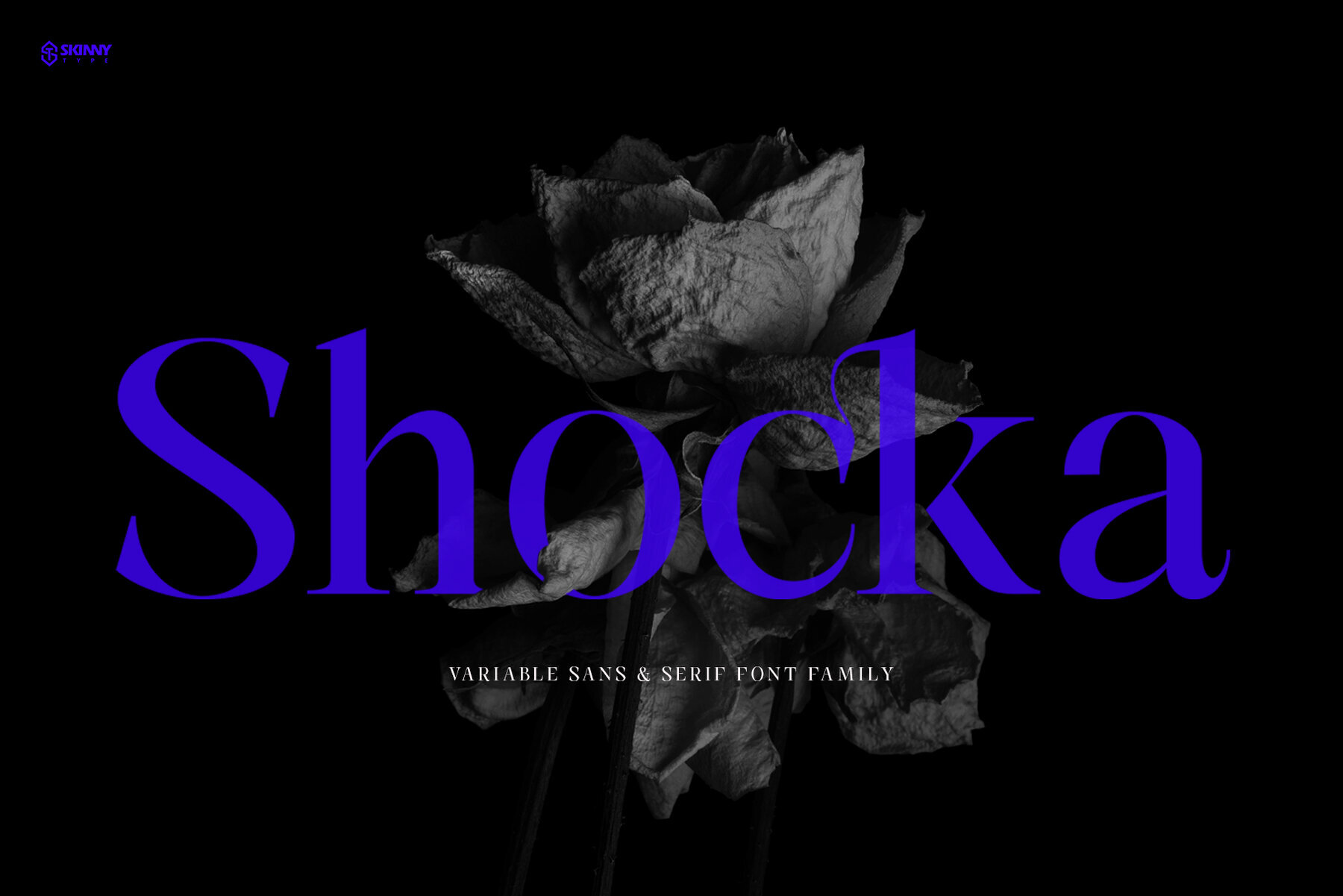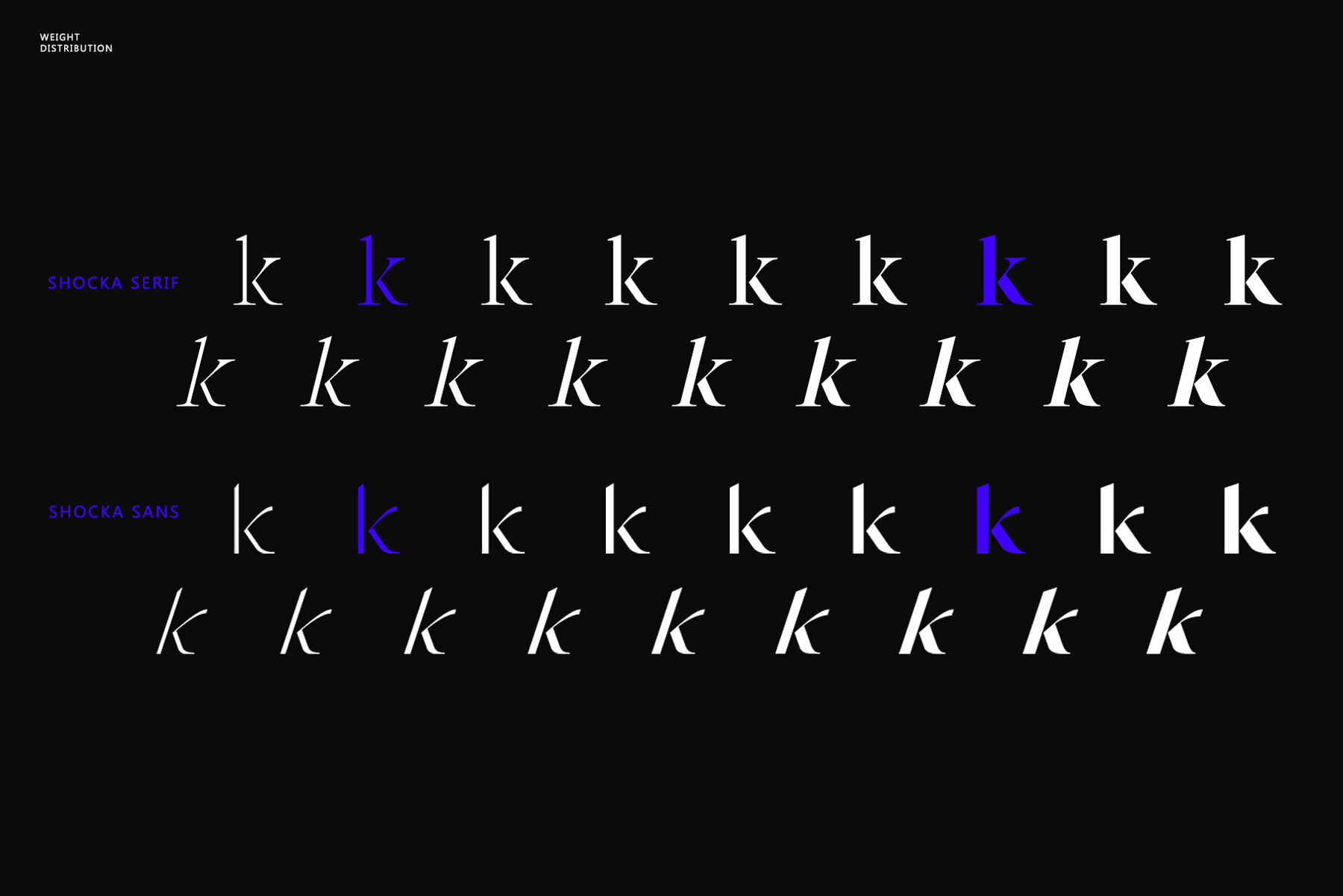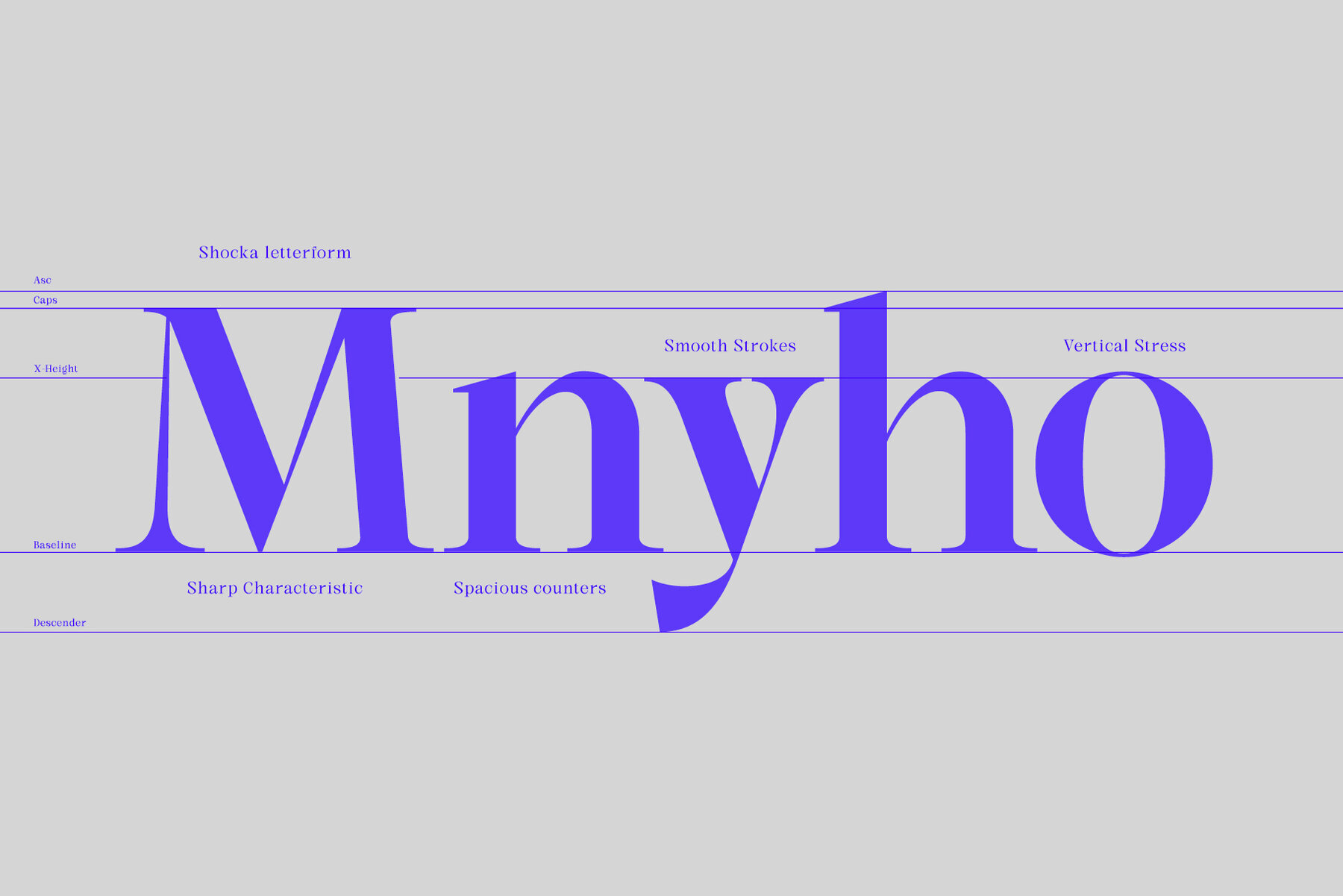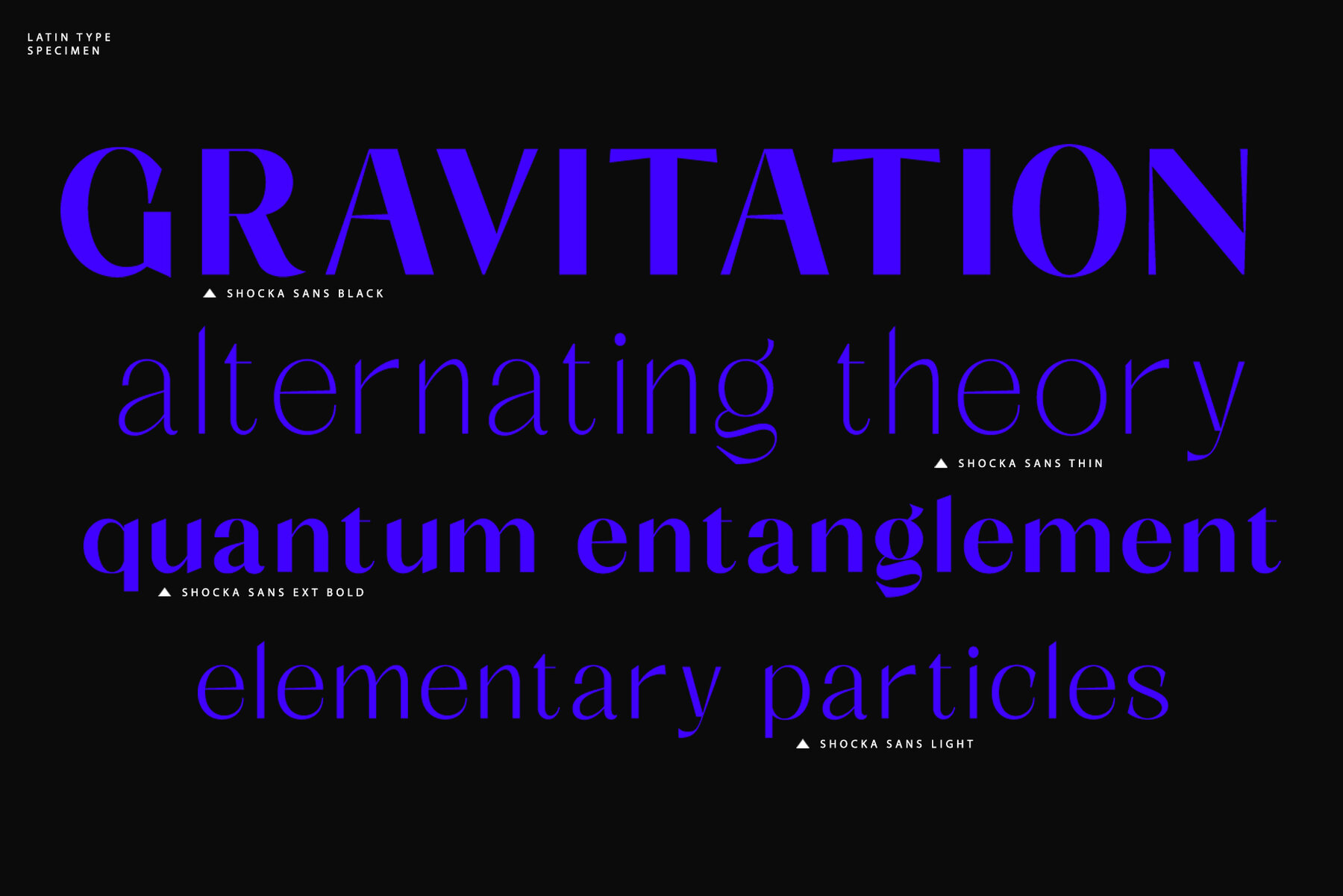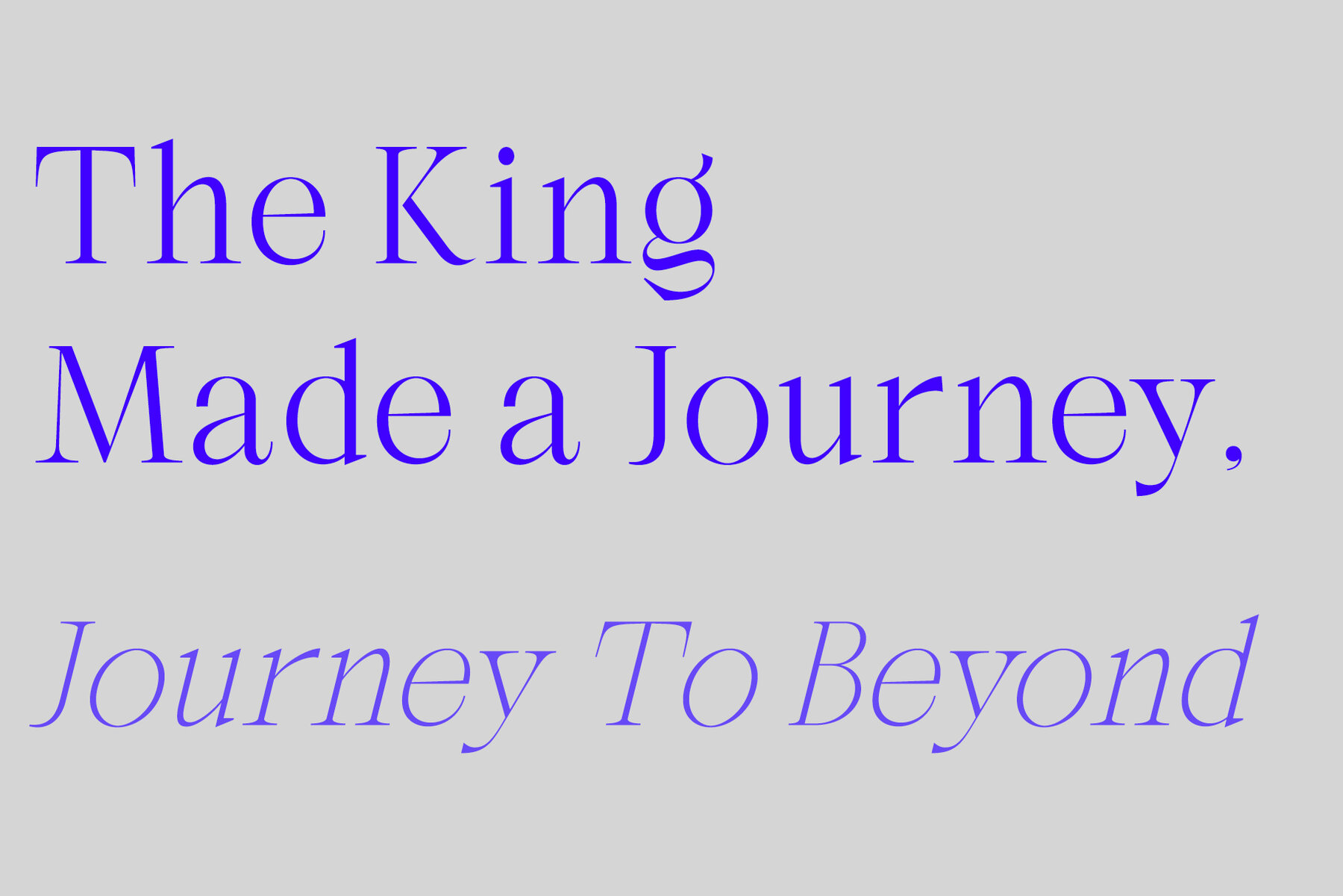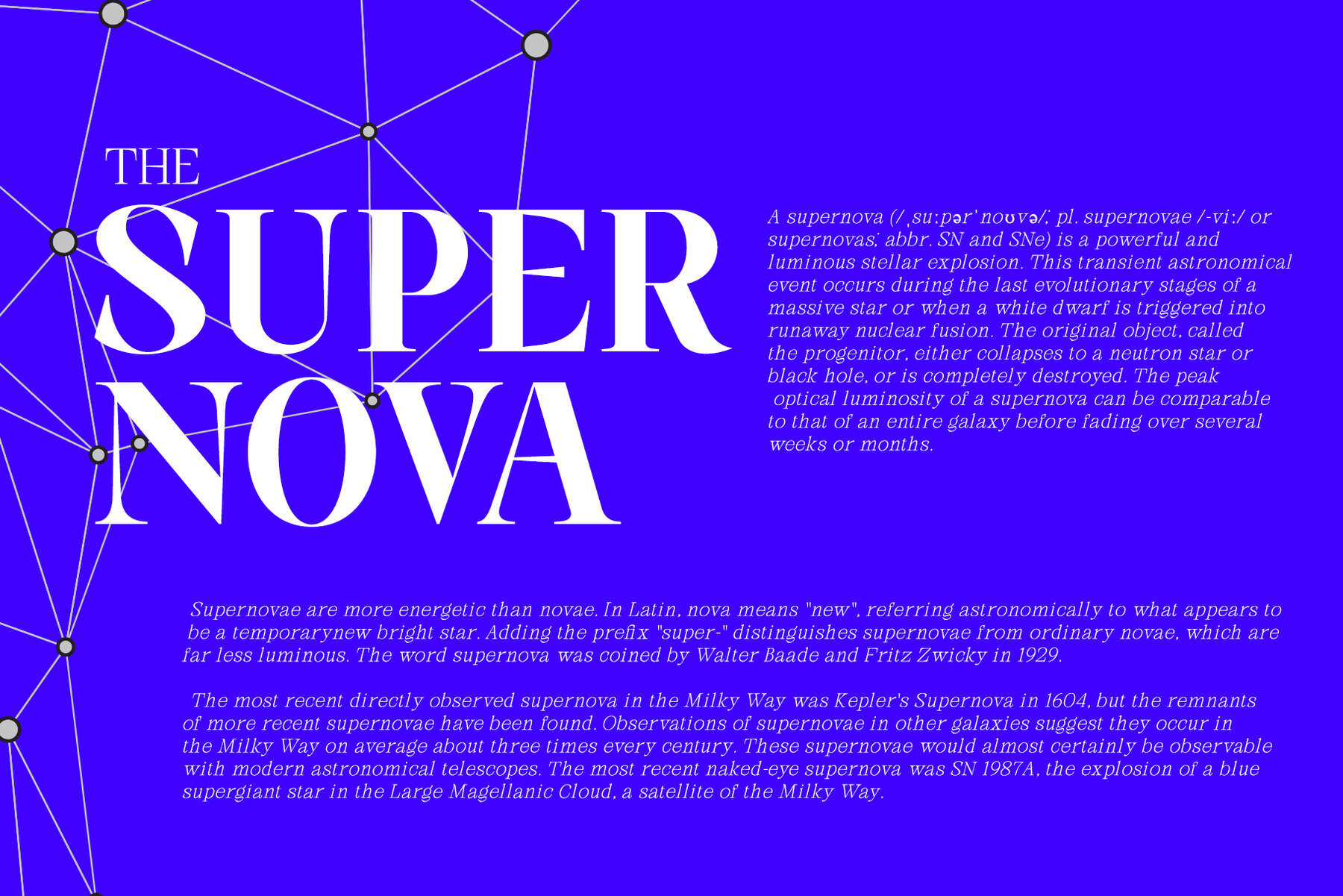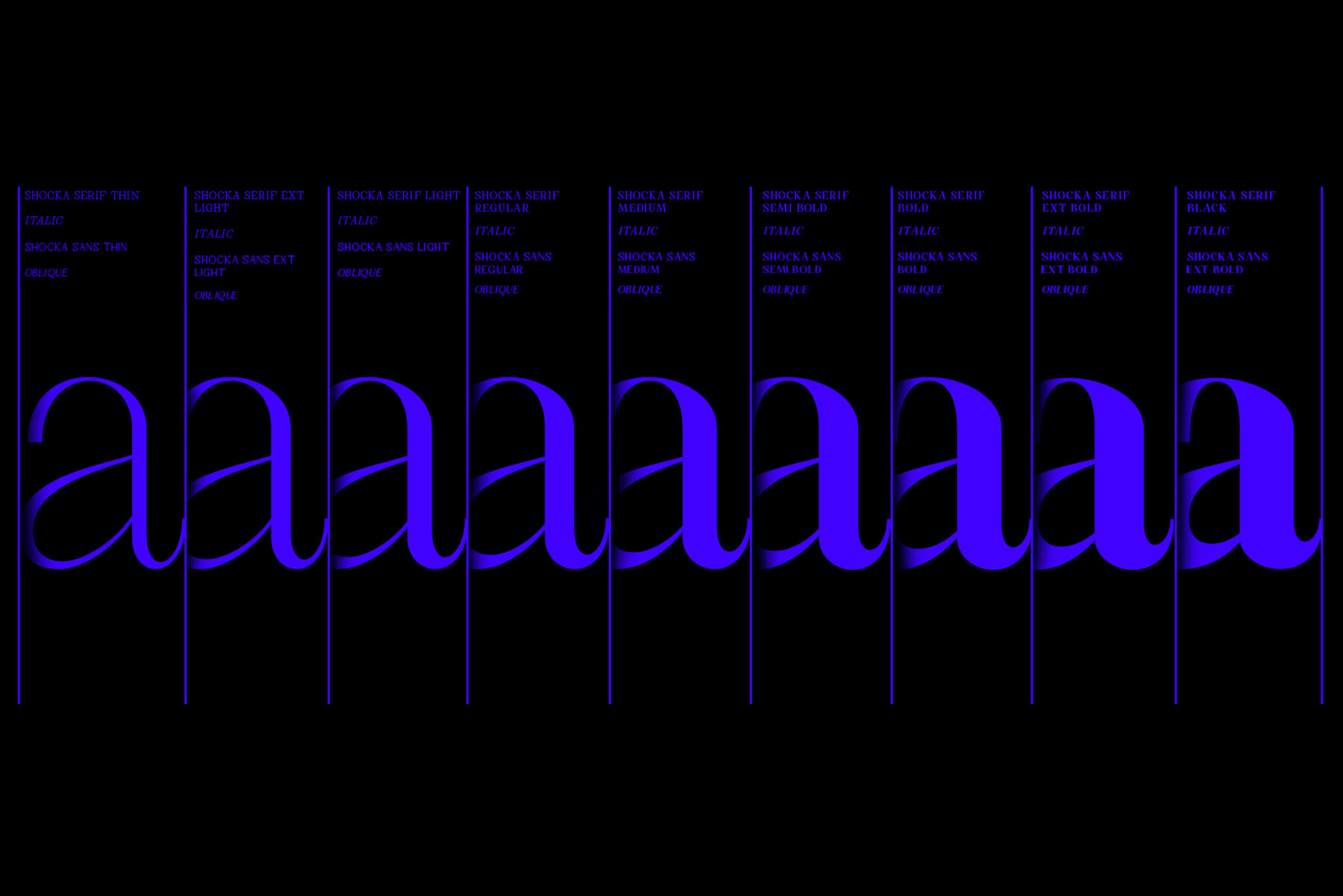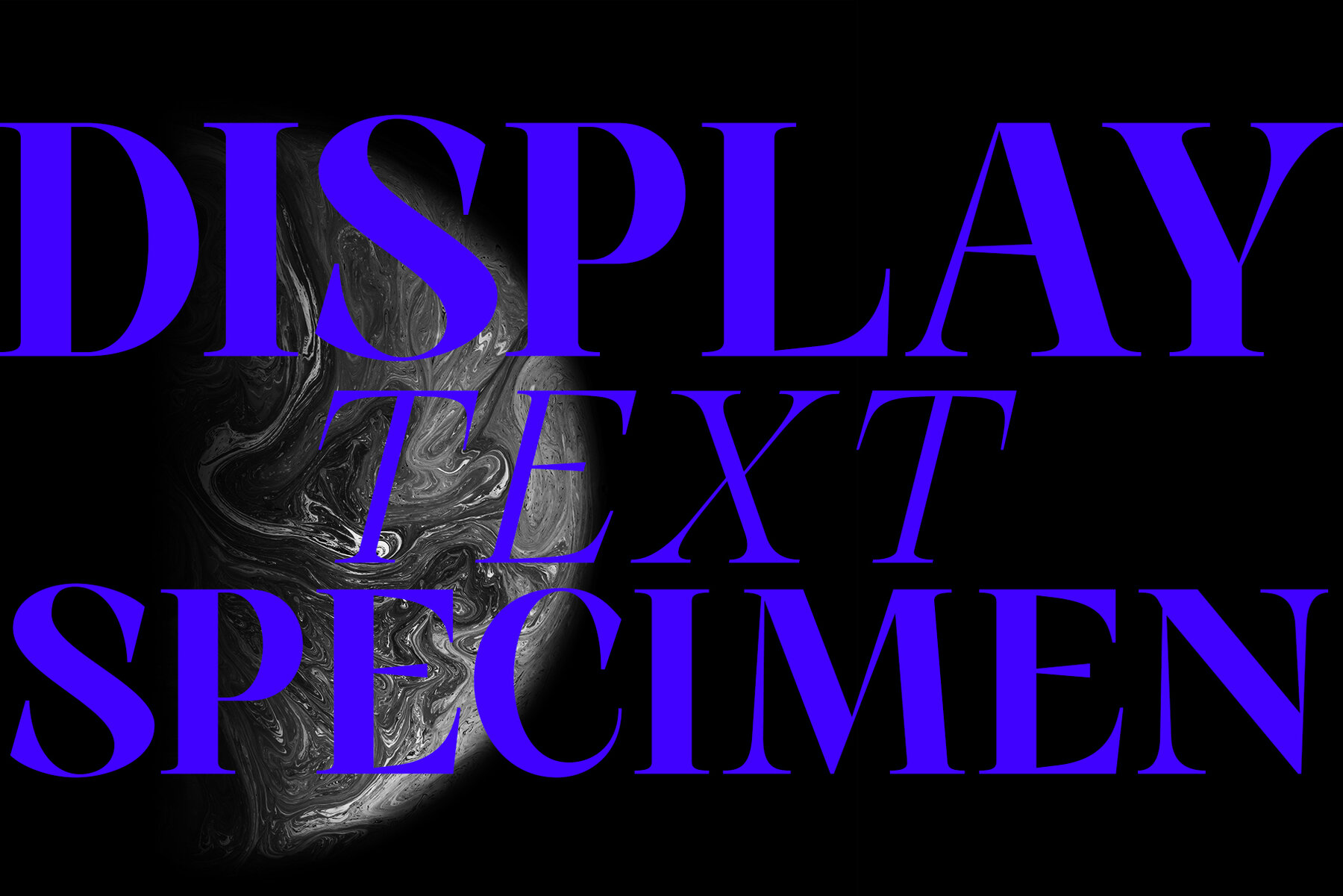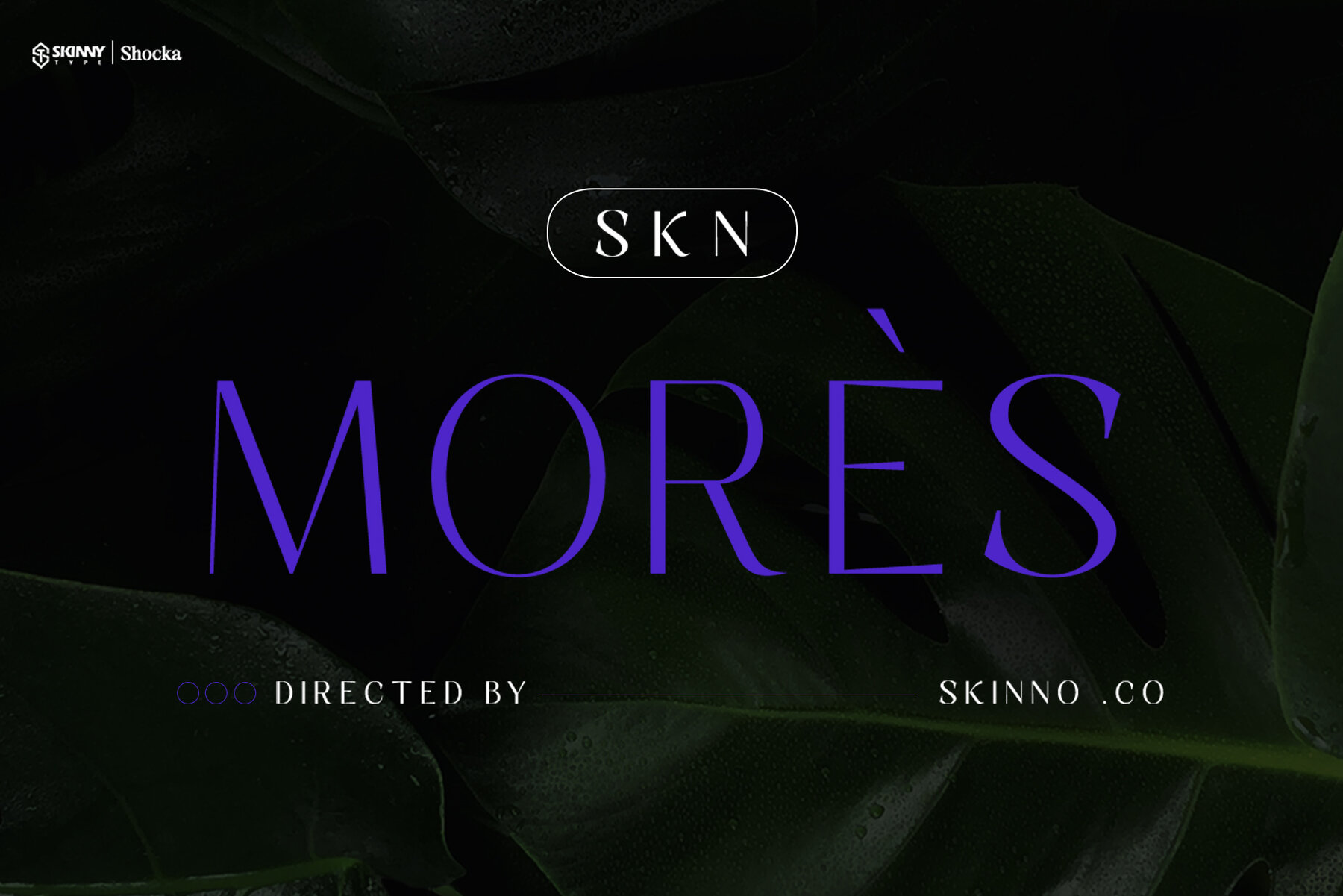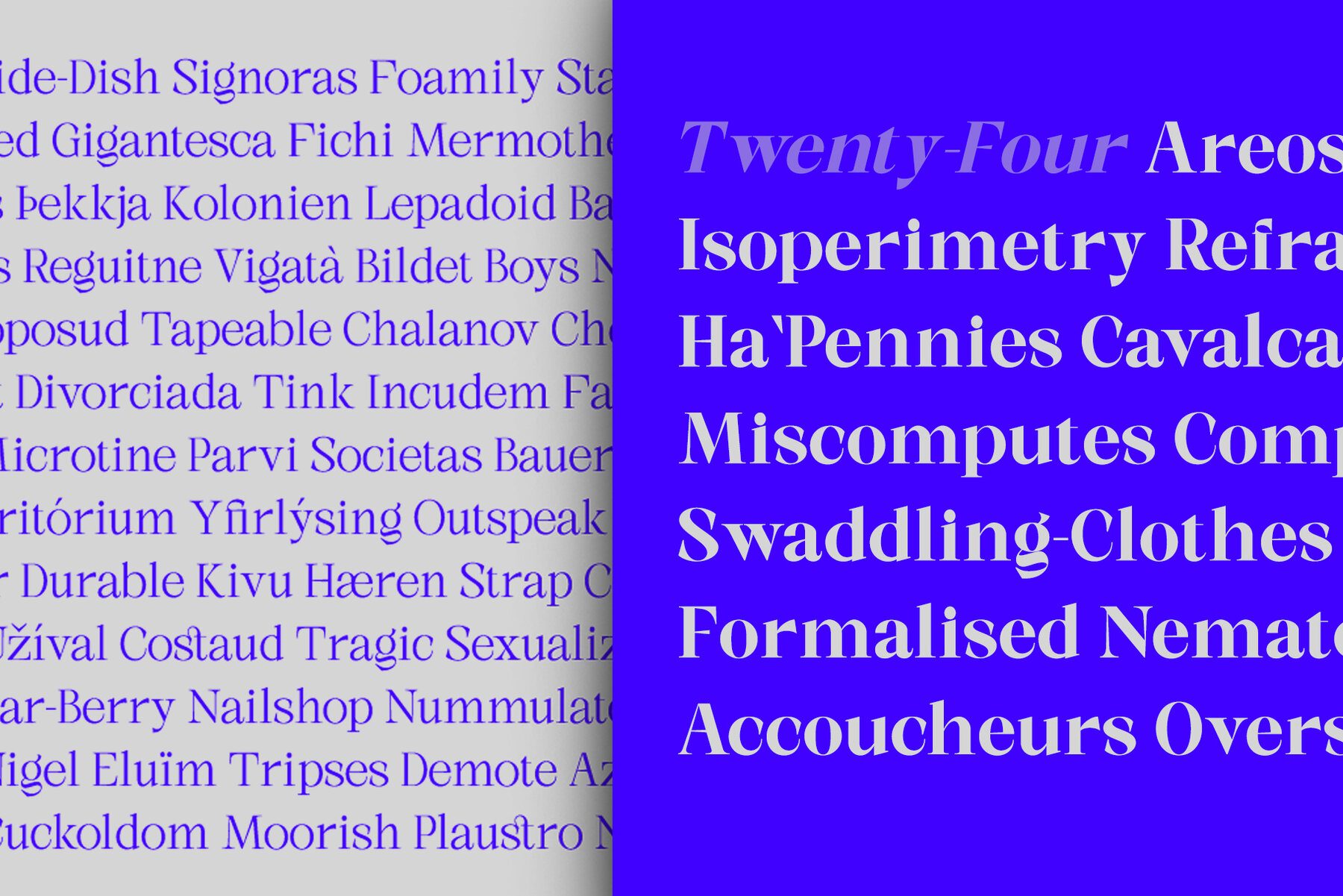
Shocka Font
Shocka Variable Family is a confident serif. Designed to reflect nature, it creates a sense of softness and natural expression. We pushed the concept in a usability-focused direction, to work as a bold tool and a beautiful communicator. Variable Shocka enables fluid design in 9 weights, italics and 2 styles with major latin based languages. The right slant advances aesthetics, brings energy and makes it suitable for modern designs. The type family blends organic curves and soft repetition into strong and harmonious types. At large dot sizes you can appreciate the shape of the letters, while the same control and focus creates an even texture for small dot sizes and long reads. Fonts extend their use by giving weights ranging from light to black. The natural curve, a swollen and sloping stem, grows in character as the font gains weight. While the thinner weight has lowered contrast and optical correction to create a warm and soft look. The Shocka Family character set combines additional symbols, style alternatives, unique binding, and case sensitive punctuation - resulting in a stable, hard-working family ready to tackle projects of any size.